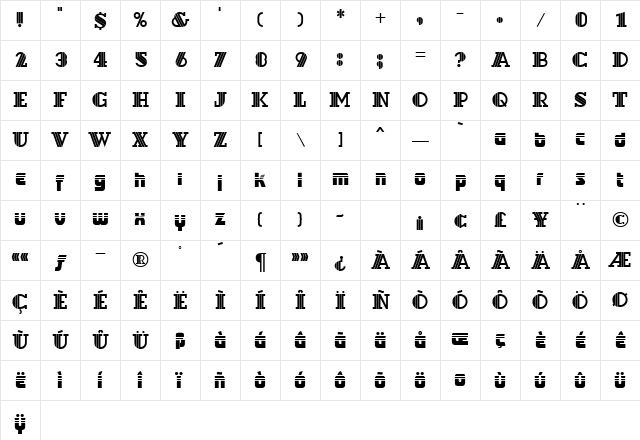
Complete Anatol Hotel Regular glyph index. Displaying only characters natively supported by Anatol Hotel Regular font.
Anatol Hotel is a composed and adaptable typeface that performs quietly and consistently across a wide range of design contexts.